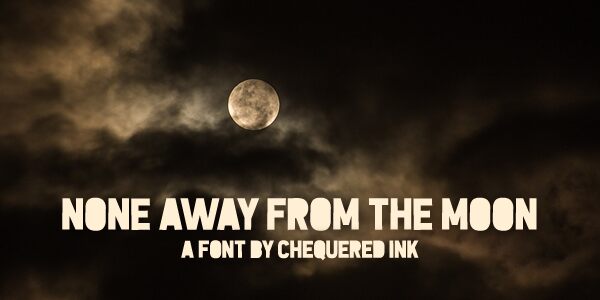
None Away from the Moon
None Away from the Moon is a captivating condensed font designed by Allison James. Its striking aesthetic, marked by sharp angles and a distinct geometric flair, creates an impactful visual statement.
The font's refined, yet bold nature lends itself well to a variety of design applications, from eye-catching headlines to sleek branding elements. Its condensed width allows for versatile layout options, making it a compelling choice for designers seeking a font that balances stylistic impact with practical functionality.
The font's unique character and refined execution make it a valuable asset for those seeking to elevate their visual communications with a touch of modern elegance.
None Away from the Moon by Chequered Ink.